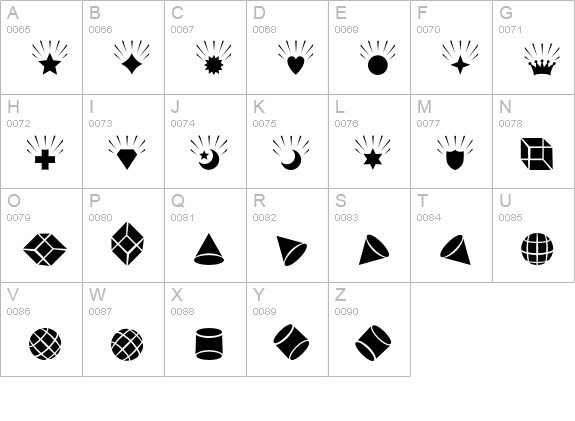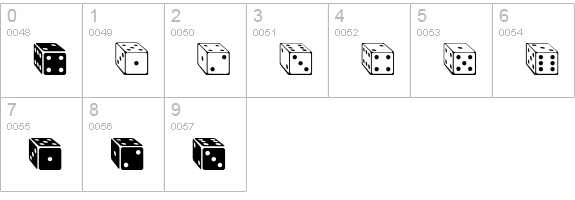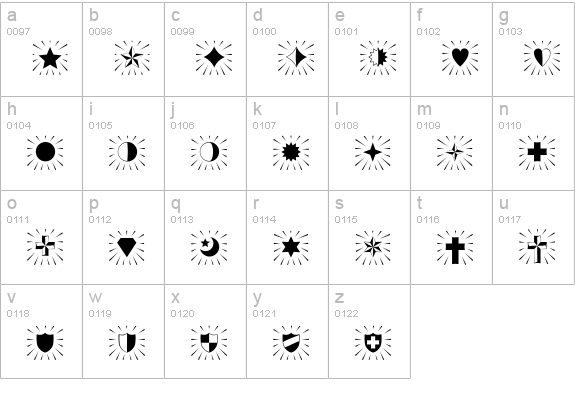
AltemusCuts Font Details
AltemusCuts font is a unique and eye-catching display typeface that will add a touch of creativity to any project. Its intricate and ornate design is perfect for making a statement or adding a decorative element to your designs. The sharp edges and intricate details of AltemusCuts font make it stand out from other fonts, giving your text a bold and striking appearance. What's even better is that AltemusCuts font is completely free to download at FontsMarket.com. This means you can easily add this stunning font to your collection without any cost. Whether you're working on a poster, logo, or any other design project, AltemusCuts font will bring a unique and artistic flair that will make your work truly stand out. Download AltemusCuts font today and let your creativity shine!